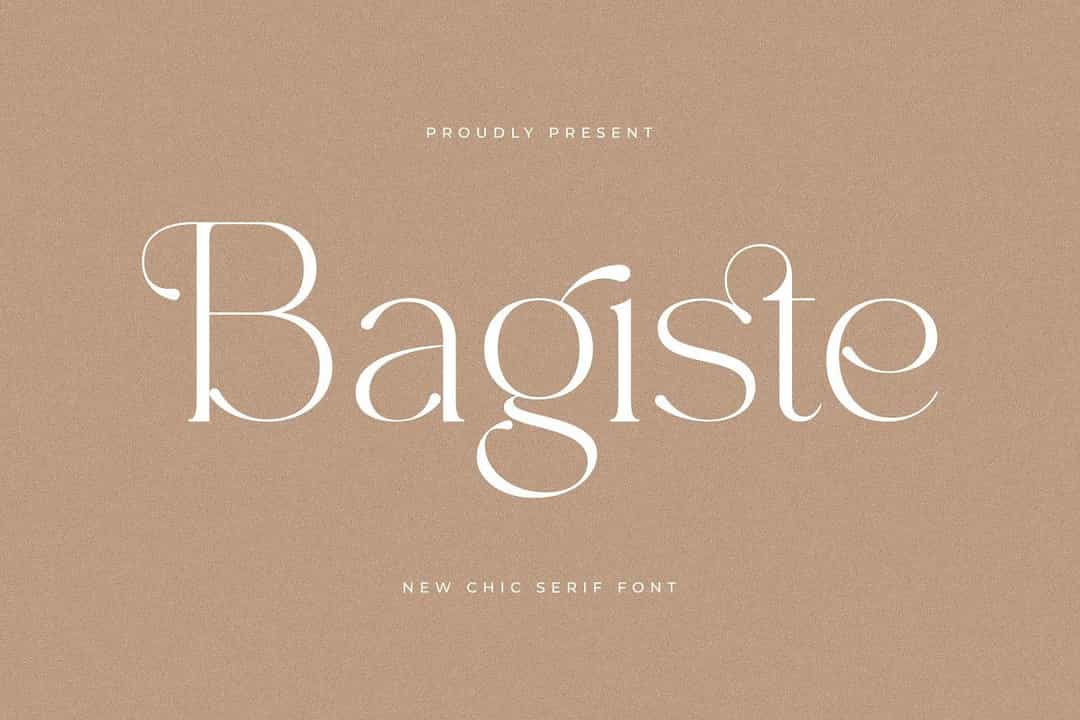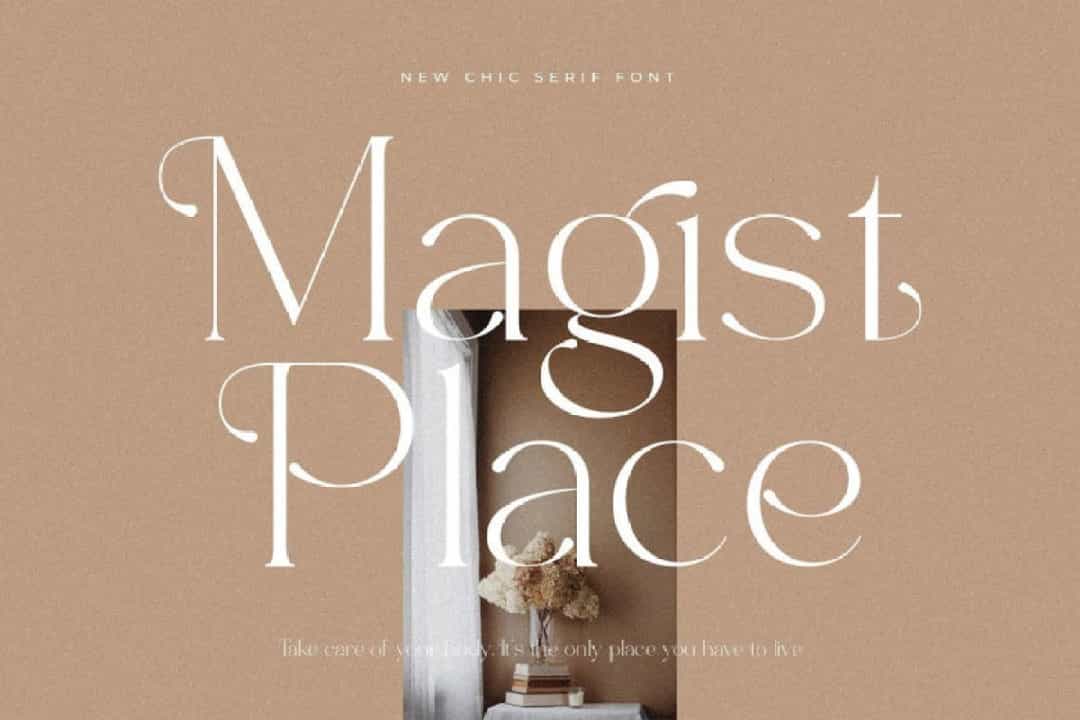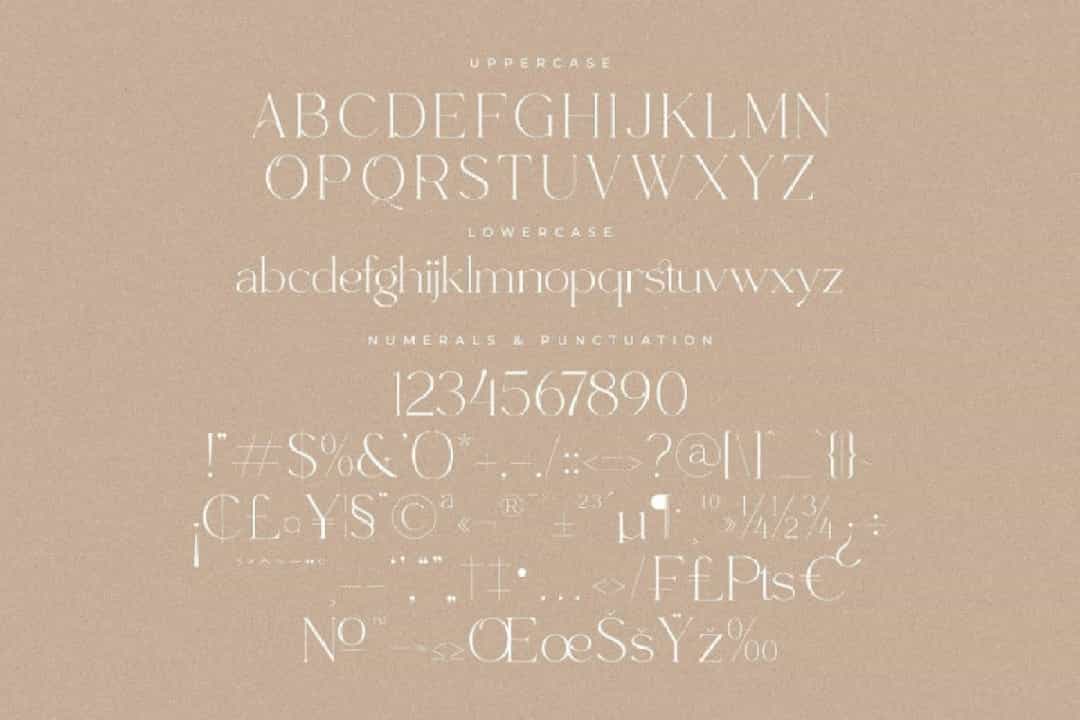
Discover Bagiste Font, part of the Serif collection—a versatile and unique font perfect for adding a personal touch to your projects. Download it for free and enjoy crafting designs with style, from invitations to social media posts. This font is available exclusively for personal use, giving you the freedom to create without limits. Unlock your creativity with Bagiste Font today!
Bagiste is an elegant yet contemporary serif typeface with a distinctive design and charming appearance, ideal for luxurious logos, movie or book titles, fashion brand clothing lines, magazine letters and quotes – among many other uses.